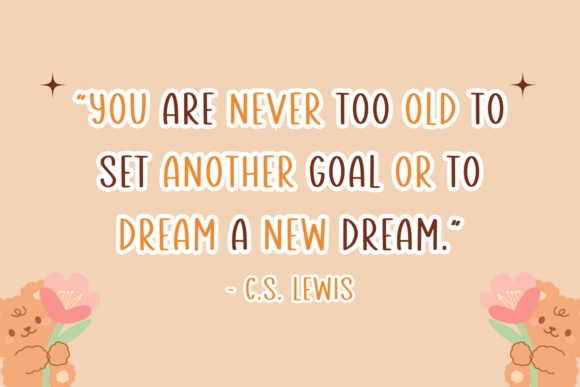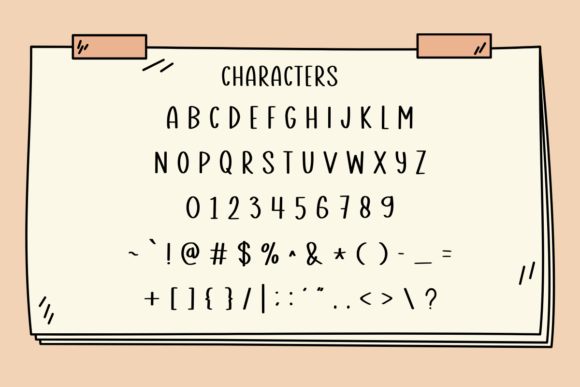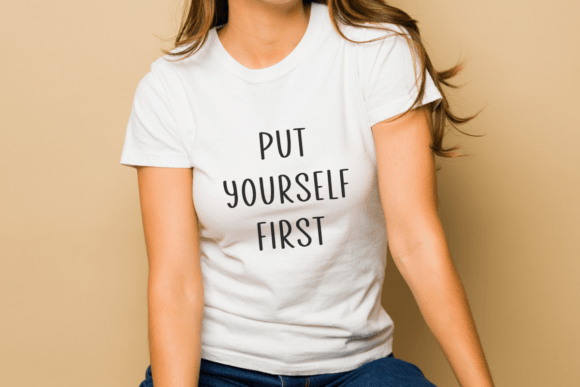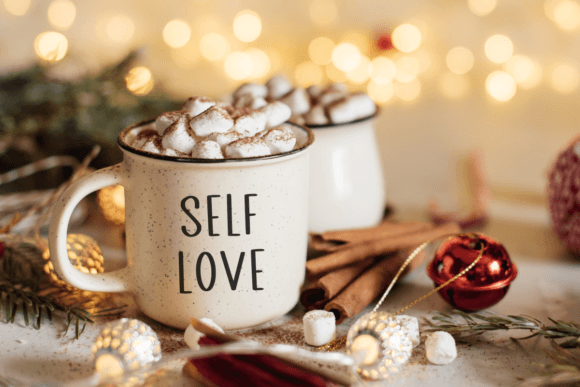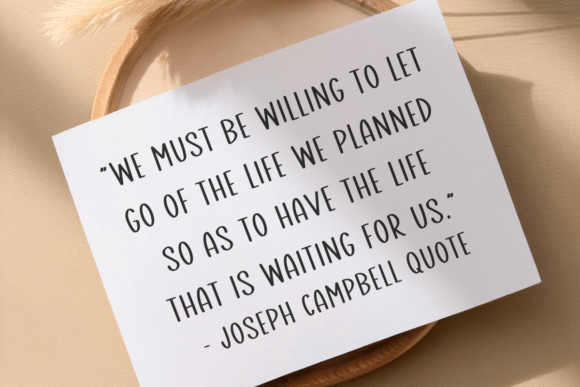
Introduction to Design Corner Font
Do you remember the thrill of rummaging through your grandmother’s old scrapbook, admiring the handwritten notes and doodles that brought her treasured memories to life? That’s the magic of the Design Corner Font – a fun, cute handwritten sans-serif font that’s perfect for creative projects and adding a personal touch to your designs.
As a designer, you know that the right font can make all the difference in a project. The Design Corner Font is a valuable resource for any designer looking to add a whimsical touch to their work. With its high-quality design and transparent background, this font is ideal for notes, planners, journals, greeting cards, invitations, scrapbooks, calendars, and more. Whether you’re working on a KDP interior, a printable, or a to-do list, the Design Corner Font is sure to bring your design to life.
Key Features of Design Corner Font
- High-quality font with a transparent background, perfect for creative projects requiring a clean and minimalist design.
- Includes a range of font sizes, from 12pt to 72pt, to cater to different design needs and requirements.
- Designed with a high resolution of 300 DPI, ensuring crisp and clear text even when enlarged or used in high-resolution designs.
- Perfect for use in a variety of design contexts, including logos, branding, typography, and more.
- Comes with a comprehensive character set, including Latin, Cyrillic, and Greek alphabets, as well as punctuation and special characters.
Honest Review: Design Corner Font
I recently stumbled upon the Design Corner Font, and I must say it’s been a great addition to my design resource collection. The font is perfect for any creative project that requires a modern and clean look.
- Highly legible
What doesn’t work so well: ⚠️ The font is not ideal for projects that require a bold, attention-grabbing look. The design is quite subtle and may get lost in more complex compositions.
Overall, I’m impressed with the Design Corner Font. It’s a high-quality resource that’s perfect for designers who want a clean and modern look without breaking the bank. I’d definitely recommend it for any creative project that requires a touch of elegance.
The Design Corner Font is perfect for various design projects, including social media graphics, posters, infographics, logos, and typography-based designs. You can also use it in presentations, documents, and other creative projects where a high-quality font is required.